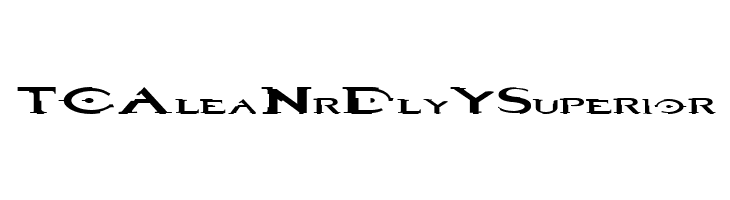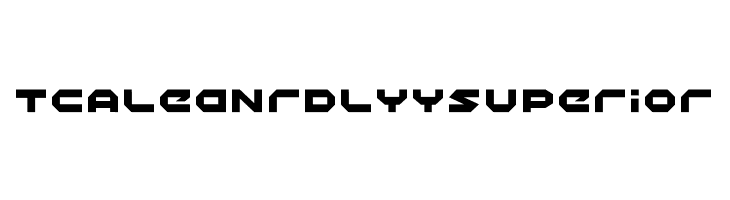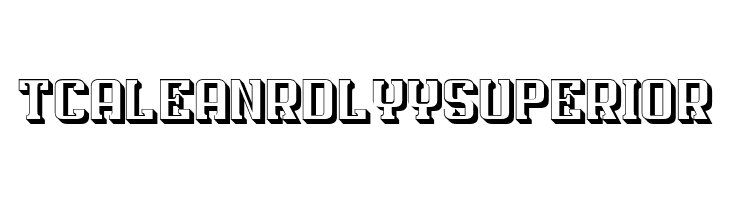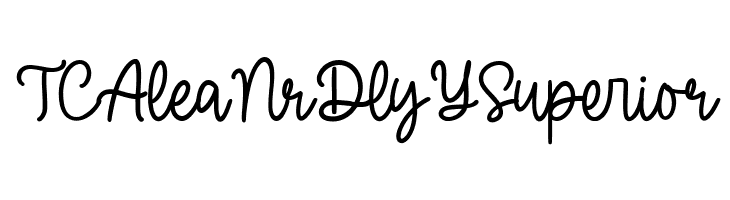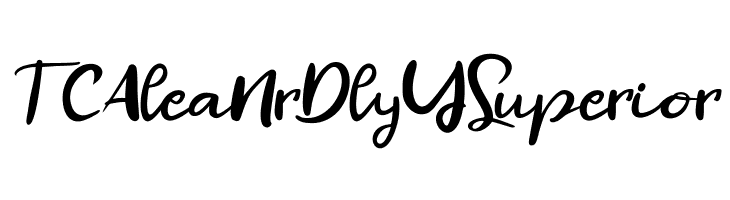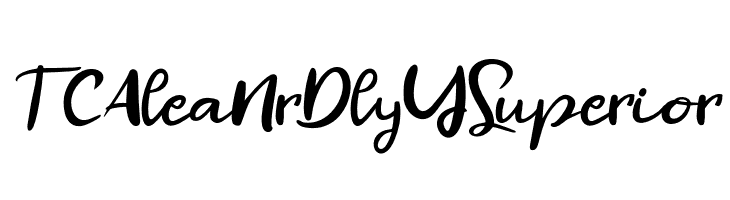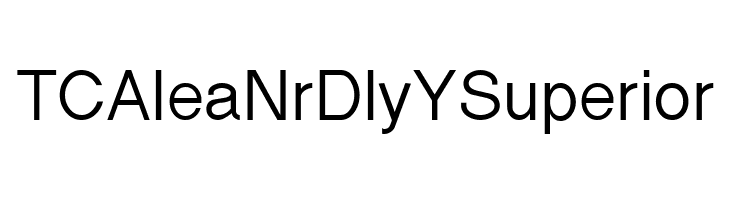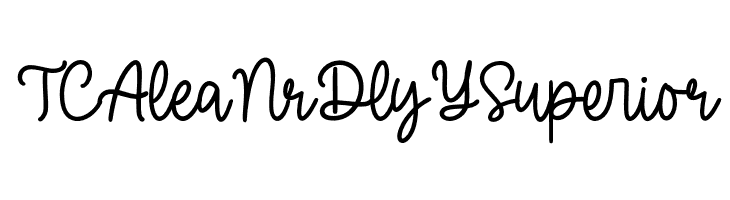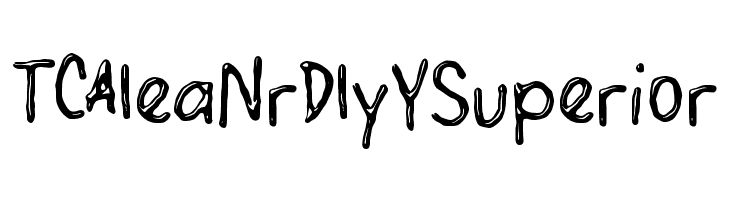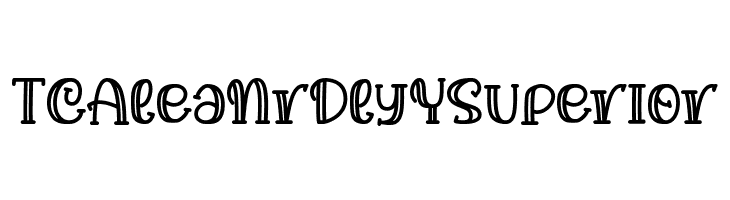
A whimsical, decorative font with a magical, gothic flair.
Expressive, bold brush script with jagged, energetic strokes.
A bold, dynamic brush script font with energetic and flowing strokes.
A bold, flowing script font with connected characters and dynamic curves.
A whimsical, hand-drawn font with irregular, artistic strokes.
A playful and fluid handwritten font with a casual, connected style.
A dynamic and elegant script font with fluid strokes and a graceful slant.
A bold, modern sans-serif font with uniform strokes and high legibility.
An elegant and sophisticated cursive script font with fluid, connected strokes.
Expressive, bold script with a handwritten brush style.
A playful, casual handwritten font with fluid, connected strokes.
A playful, casual handwritten font with flowing, connected letterforms.
A lively and elegant script font with smooth, interconnected curves.
A lively and expressive script font with fluid, dynamic strokes.
A rugged, textured font with a hand-drawn, distressed style.
A bold, playful font with rounded, cartoonish characters.
A bold, decorative font with whimsical curves and loops.
A playful and decorative font with bold, whimsical characters.
A bold, futuristic font with angular lines and geometric elements.
A playful, dotted font with bold, rounded characters and whimsical decorative elements.
A bold, three-dimensional font with a dynamic and decorative style.
A playful handwritten font with fluid, connected letterforms and a charming cursive flow.
A playful, hand-drawn font with a whimsical and artistic style.
A bold, graffiti-style font with dynamic, hand-drawn strokes.